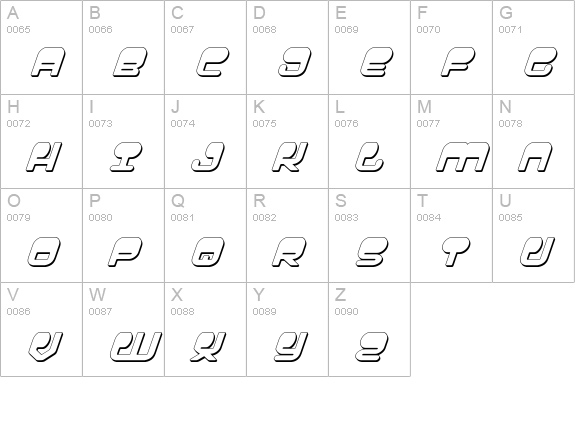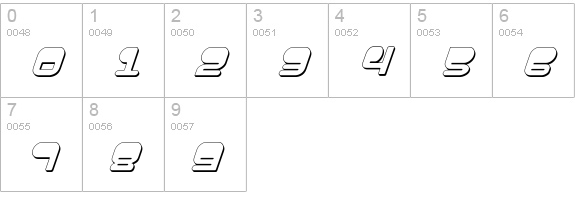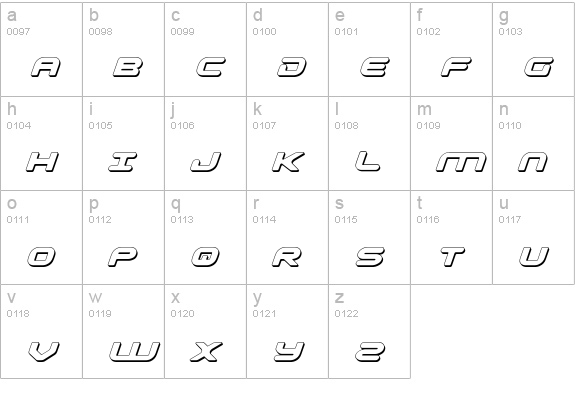
HYPNO Agent 3D Italic is a distinctive, italic variant in the HYPNO typeface family \xE2\x80\x94 well suited to design and typography projects.
Introducing HYPNO Agent 3D Italic font - a captivating and dynamic typeface designed to add depth and dimension to your projects. This sleek and modern font features a unique 3D effect that gives your text a futuristic and eye-catching appearance. Perfect for creating bold headlines, stylish logos, and impactful designs, HYPNO Agent 3D Italic font is sure to make a lasting impression. The best part? HYPNO Agent 3D Italic font is available for free download at FontsMarket.com. Simply visit the website to access this stunning font and take your design projects to the next level. Don't miss out on this opportunity to enhance your work with the striking visual impact of HYPNO Agent 3D Italic font - download it now and unleash your creativity!